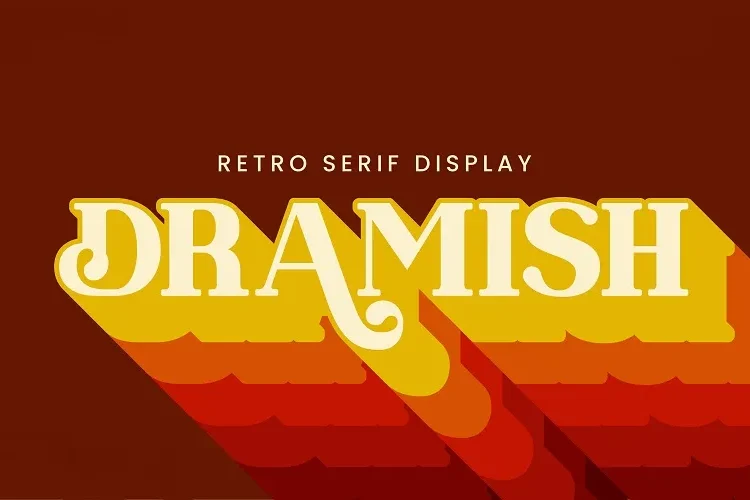
Dramish Font
Dramish is a captivating new font that channels a bold retro style, designed to bring a sense of nostalgia and impact to your projects. As a display font with pronounced serifs and all capital letters, Dramish immediately commands attention, making it an excellent choice for any design that needs to stand out. The font’s robust and confident appearance is further enhanced by its inclusion of alternate characters and ligatures, offering designers the flexibility to create unique and dynamic compositions that resonate with the classic yet bold aesthetic.
The retro style of Dramish makes it particularly well-suited for logotypes and logo text, where its strong presence can define brand identity with a timeless flair. Whether you’re working on branding for a vintage-inspired business or creating a bold graphic design with a throwback feel, Dramish provides the perfect balance of old-school charm and modern versatility. Its serifs add a touch of tradition, while its overall boldness ensures that it remains relevant and impactful in contemporary designs.
Dramish’s versatility extends beyond just logos and branding. It can be effectively used in various graphic design projects that require a retro touch, from posters and packaging to website headers and social media graphics. The font’s ability to evoke a sense of the past while maintaining a fresh and modern feel makes it an ideal choice for designers looking to create work that bridges eras and appeals to a wide audience.